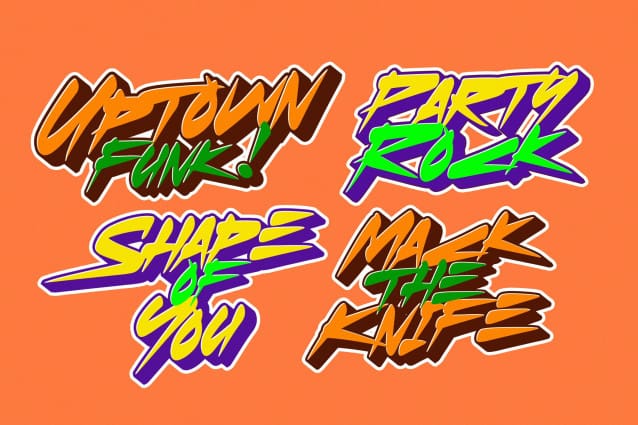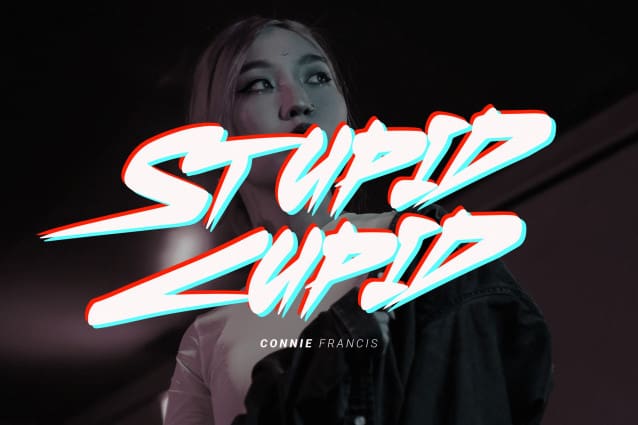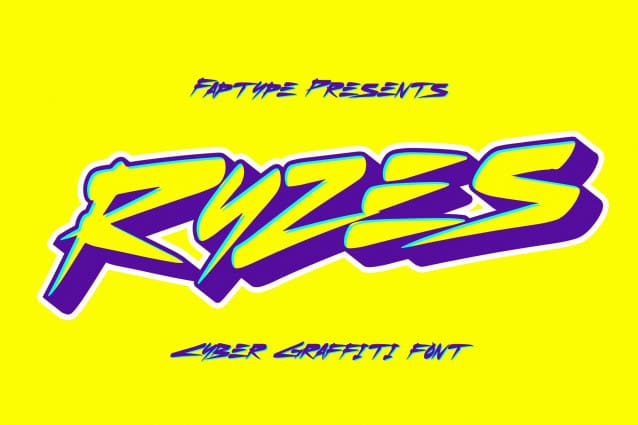
Ryzes Graffiti Font
Ryzes Graffiti Font – a font that plunges you into the immersive world of cyber graffiti with a distinct cyberpunk feel. This font is your gateway to a dystopian digital realm, combining edgy aesthetics with a futuristic vibe that speaks of rebellion and technology.
Ryzes Graffiti Font captures the very essence of the cyberpunk genre, offering a text that embodies the rebellious and high-tech spirit of a dystopian future. Each character resonates with the anarchic energy and unconventional style of cyber graffiti, making your designs pop with a captivating and distinctive edge.
Complete Character Set: “Ryzes” boasts a comprehensive character set that includes both uppercase and lowercase letters, numerals, and a rich selection of symbols and punctuations. This versatility ensures that your text is not only visually stunning but also functionally adaptable.
But that’s not all. “Ryzes” takes your creativity a step further with an extruded version. This adds depth and dimension to your designs, allowing you to effortlessly create 3D text that embodies the cyberpunk aesthetic. The combination of the regular and extruded styles offers endless possibilities for crafting captivating 3D designs.
Whether you’re working on cyberpunk-inspired branding, futuristic posters, or any project that demands a cyber graffiti aesthetic, Ryzes Graffiti Font is your ultimate companion for pushing the boundaries of design. Dive into a world where rebellion meets technology, and let “Ryzes” be your creative tool in crafting designs that resonate with the electrifying spirit of the cyberpunk genre in 2D and 3D dimensions, bursting with color and pop culture excitement.